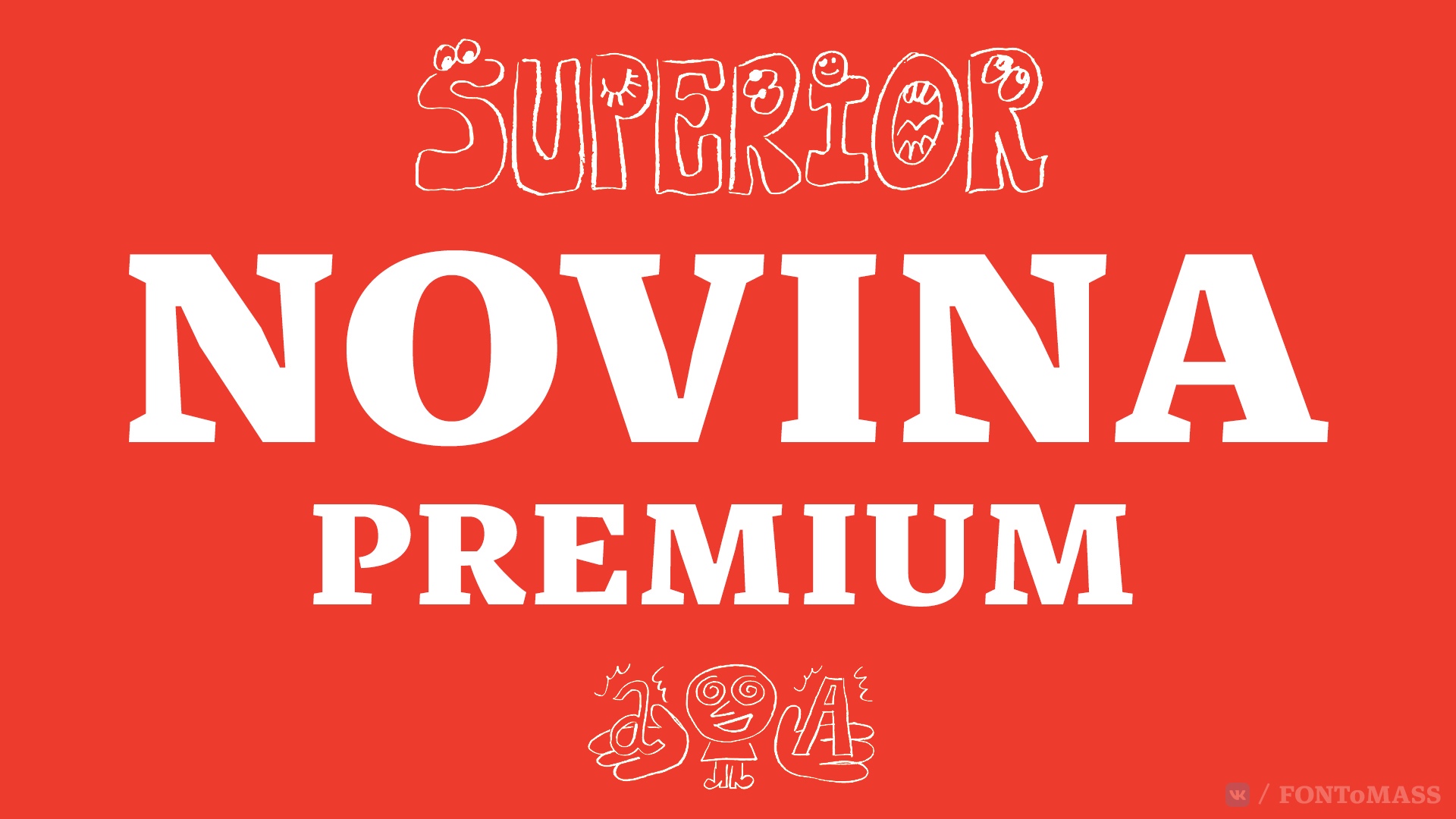
Novina Premium Font is perfect for luxury branding, high-end corporate identities, premium product packaging, exclusive fashion labels, sophisticated magazine layouts, upscale hospitality brands, executive presentations, elite service companies, and prestigious brand communications.
Novina Premium Font is exciting because it represents the pinnacle of typographic excellence with its meticulously crafted letterforms and uncompromising attention to detail that instantly communicates prestige and exclusivity. Its sophisticated design philosophy combines contemporary innovation with timeless elegance, making it the ultimate choice for brands that demand nothing less than perfection in their visual communications.
The Novina Premium Font family includes Ultra Light, Light, Regular, Medium, Bold, Black weights, comprehensive Italic series, Condensed variations, Extended styles, Display cuts, and Professional alternates, providing designers with an extensive typographic system for creating cohesive premium brand experiences across all touchpoints.
Novina Premium Font Free Download delivers unparalleled sophistication for the most demanding design applications, featuring precision-engineered letterforms that embody the essence of premium typography. This exceptional typeface combines technical perfection with aesthetic refinement, creating a distinctive visual language that resonates with discerning audiences and elevates brands to the highest echelons of market positioning.
Whether you're developing luxury brand systems, designing premium product lines, creating executive communications, or producing high-end marketing materials, Novina Premium Font provides the typographic foundation essential for extraordinary brand experiences. Its distinguished character makes it particularly effective for financial services, luxury automotive, premium real estate, and exclusive membership organizations that serve elite clientele.
Perfect for luxury brand consultants, premium design agencies, executive creative directors, and brand strategists working with high-value clients, this font offers the exceptional qualities required for successful premium positioning. The typeface's systematic approach ensures flawless consistency across complex brand applications and multiple market segments.
Novina Premium Font includes comprehensive global language support, advanced typography features, and meticulously optimized spacing that guarantees superior performance in premium design contexts. Its uncompromising approach to excellence makes it indispensable for brands competing at the highest levels. Achieve typographic perfection with Novina Premium Font Free Download and create designs that define premium standards.